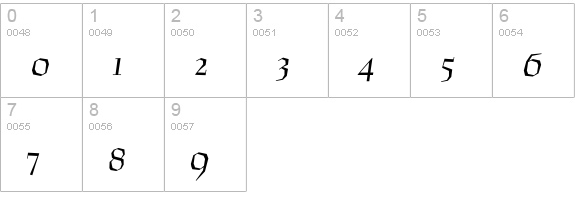
RuzenaAntikva-Italic Font Details
RuzenaAntikva-Italic is a distinctive, italic variant in the RuzenaAntikva typeface family \xE2\x80\x94 well suited to design and typography projects.
RuzenaAntikva-Italic is a beautifully crafted font that exudes elegance and sophistication. Its delicate, flowing curves and intricate details make it perfect for adding a touch of refinement to any design project. The italic style of this font adds a sense of flair and sophistication, making it ideal for use in headings, titles, and other prominent text elements. What sets RuzenaAntikva-Italic apart is not only its stunning design but also the fact that it is completely free to download. That's right - you can enhance your projects with this exquisite font without having to spend a dime. Simply head over to FontsMarket.com and start using RuzenaAntikva-Italic in your designs today. Whether you're working on a branding project, creating elegant invitations, or designing a sophisticated website, RuzenaAntikva-Italic is sure to elevate your work to the next level. Download it now and experience the beauty and versatility of this stunning font for yourself.